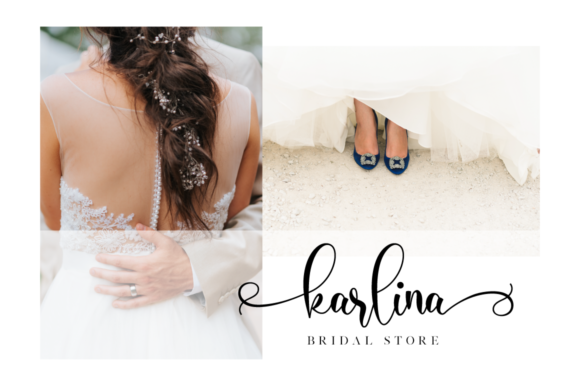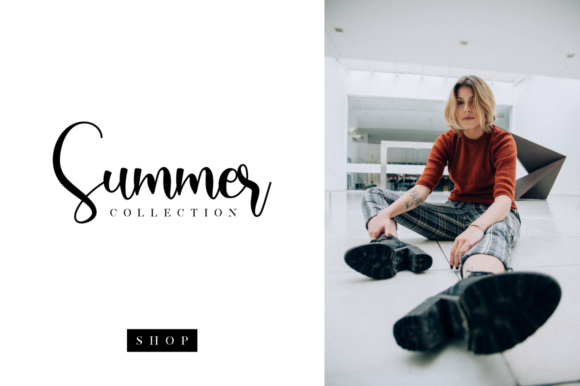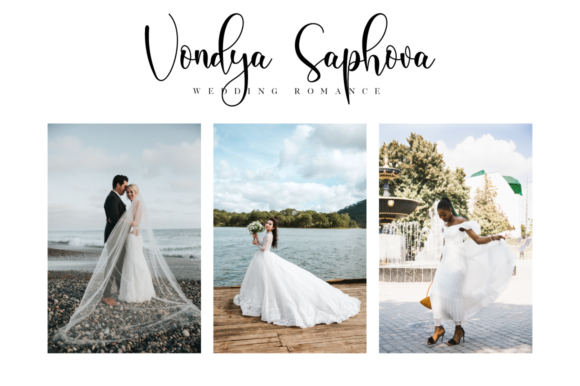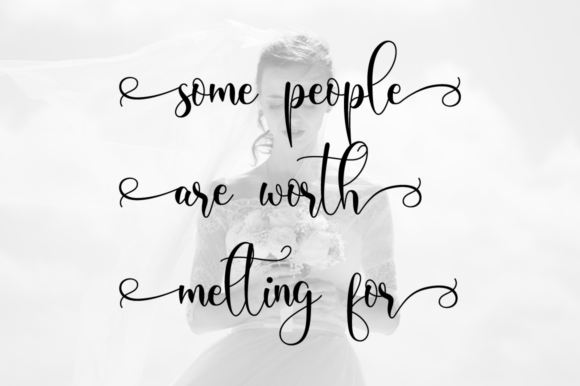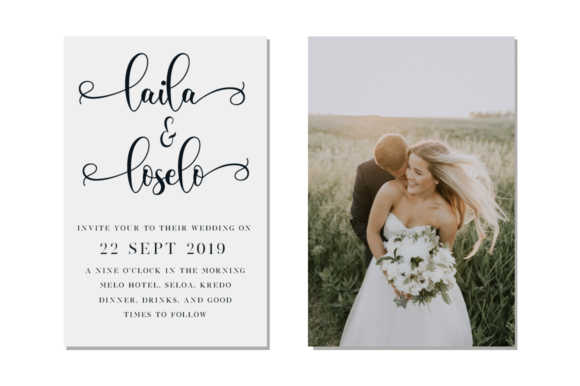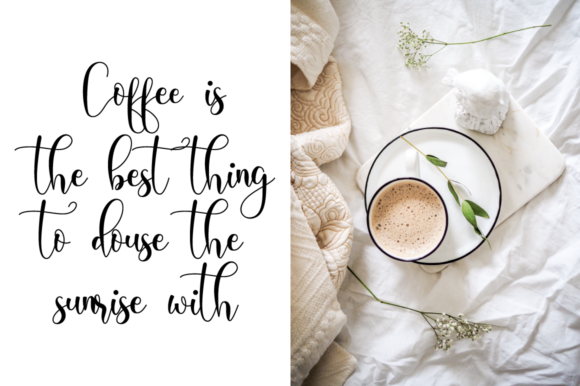
Introduction to Domiland Font Font
Fonts play a crucial role in design, and the Domiland Font font is a typeface that brings both character and versatility to any project. Whether you’re working on a branding project, a website, or a print design, the Domiland Font font offers a unique style that can elevate your work.
Domiland is a beautiful script font that has a classy, elegant, and modern look.
Fall in love with its flowing curves .
Key Features of Domiland Font Font
Why Choose Domiland Font Font?
The Domiland Font font is more than just a typeface – it’s a design tool that helps you communicate your message with style and clarity. Its unique character set and versatile design make it suitable for a wide range of applications, from elegant invitations to bold headlines.
With its carefully crafted letterforms and balanced proportions, the Domiland Font font ensures readability and visual appeal across all mediums.
What makes Domiland Font font special?
The Domiland Font font stands out with its unique design, exceptional readability, and versatility across various design applications.